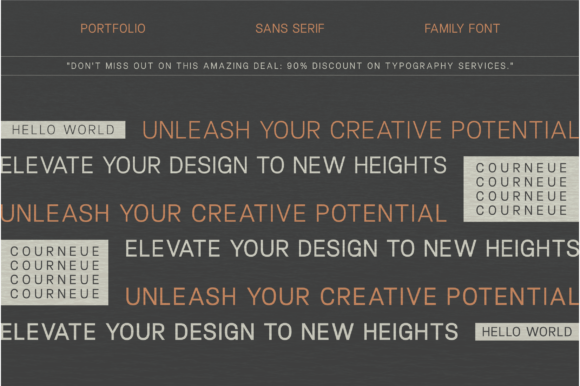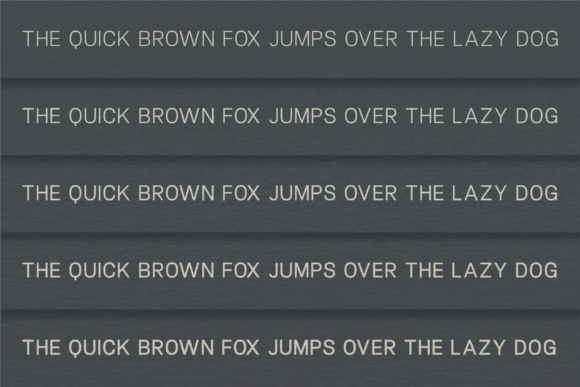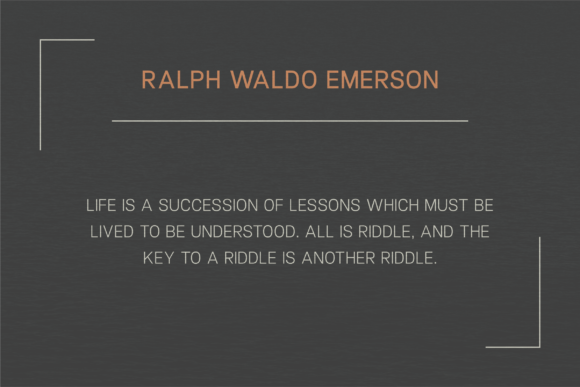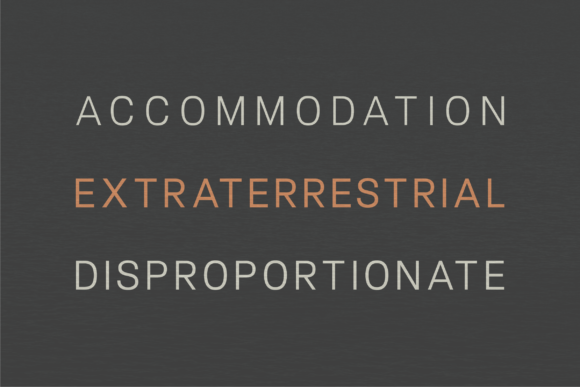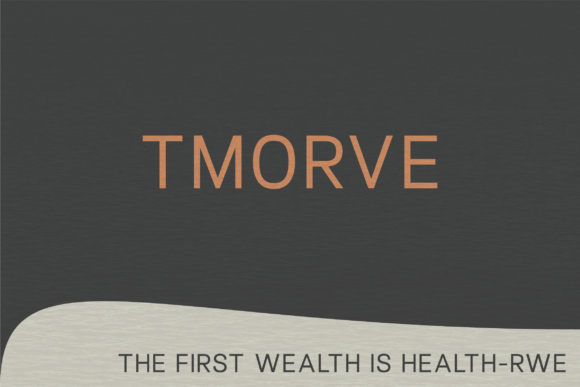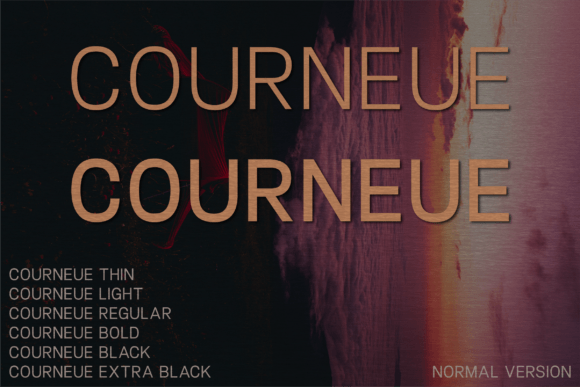
Introducing Courneue: The Epitome of Elegance and Simplicity in Typography
In the realm of design, the right typography can elevate a project from mundane to extraordinary. For those seeking a font that embodies both class and simplicity, look no further than Courneue, a refined sans serif font family that is redefining the boundaries of modern luxury. With its five unique weights, Courneue offers a versatile solution for designers aiming to infuse their creations with a touch of sophistication and elegance.
The Essence of Courneue: A Harmonious Blend of Contemporary and Luxurious
Courneue is not just a font; it’s an experience. It superbly merges the contemporary with the luxurious, providing a fresh yet timeless aesthetic that can transform any project. Whether you’re working on an upscale magazine, crafting a luxury branding logo, or designing a captivating film poster, Courneue is the perfect companion. Its meticulously crafted design ensures that it can upscale any project, adding a layer of finesse and straightforwardness that radiates an enduring allure.
Unleashing Creative Potential with Five Unique Weights
One of the standout features of the Courneue font family is its versatility, offered through five distinct weights. This range allows designers to experiment with different tones and emphasis within their work, ensuring that the typography complements the message and aesthetic of the project perfectly. From the light, airy feel of the lighter weights to the bold, impactful statement of the heavier weights, Courneue provides the tools to tailor the typography to the specific needs of the design.
Courneue in Design: Elevating Projects with Elegance
Imagine a luxury brand seeking a font that can convey elegance and sophistication. A filmmaker looking for a typeface that can add drama and allure to their poster. A magazine editor in need of a font that can bring a sense of upscale quality to their publication. Courneue steps in as the perfect solution, offering a clean, sans serif design that speaks of modernity while hinting at luxury.
The Benefits of Choosing Courneue
- Versatility: With five unique weights, Courneue offers flexibility for a wide range of design projects.
- Elegance: Its refined design makes it perfect for luxury branding, upscale magazines, and high-end film posters.
- Simplicity: The sans serif design ensures clarity and readability, making it suitable for both digital and print media.
- Impact: Courneue’s unique weights allow for creative hierarchy and emphasis within any design.
Exploring the Potential of Courneue
To truly appreciate the potential of the Courneue font family, designers are encouraged to explore its application across various projects. Its ability to seamlessly blend into different design contexts makes it a valuable asset in any designer’s toolkit. By incorporating Courneue into your projects, you’re not just choosing a font; you’re embracing a design philosophy that values elegance, simplicity, and impact.
Conclusion: Experience Courneue Today
In conclusion, Courneue is more than just a font family; it’s a design solution that brings together the best of modernity and luxury. Its refined aesthetic, versatile weights, and wide range of applications make it an indispensable resource for designers looking to elevate their projects. Experience the potential of Courneue today and discover how it can transform your designs with its enduring allure and timeless elegance.
Whether you’re a seasoned designer or a crafty DIY enthusiast, Courneue invites you to explore new dimensions of typography and design. With Courneue, the possibilities are endless, and the potential for creating something truly remarkable is at your fingertips.